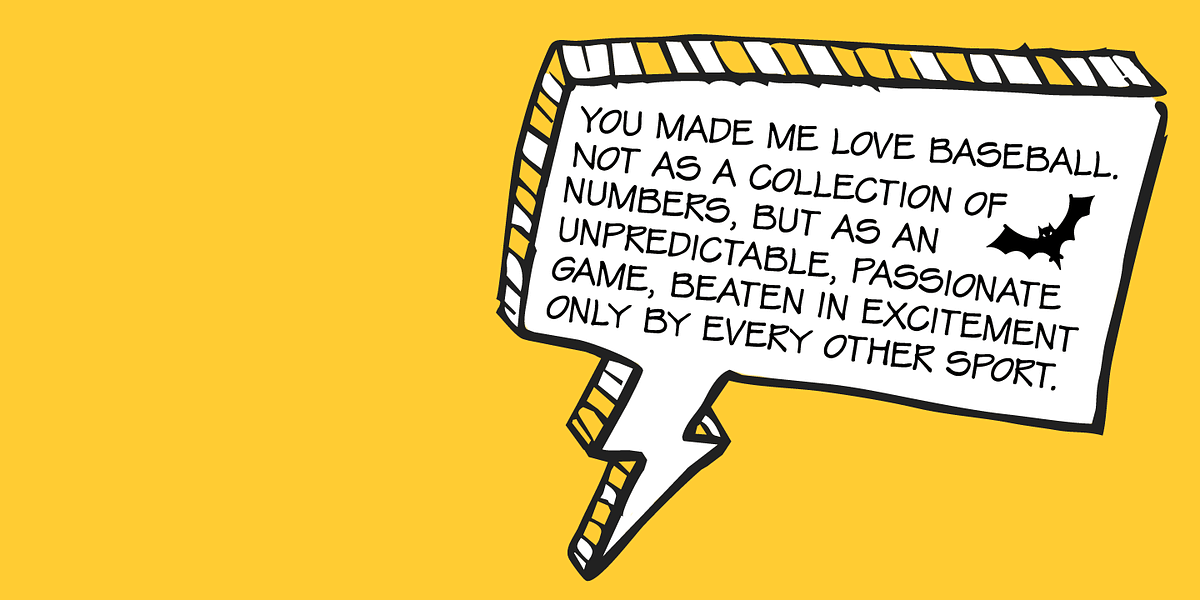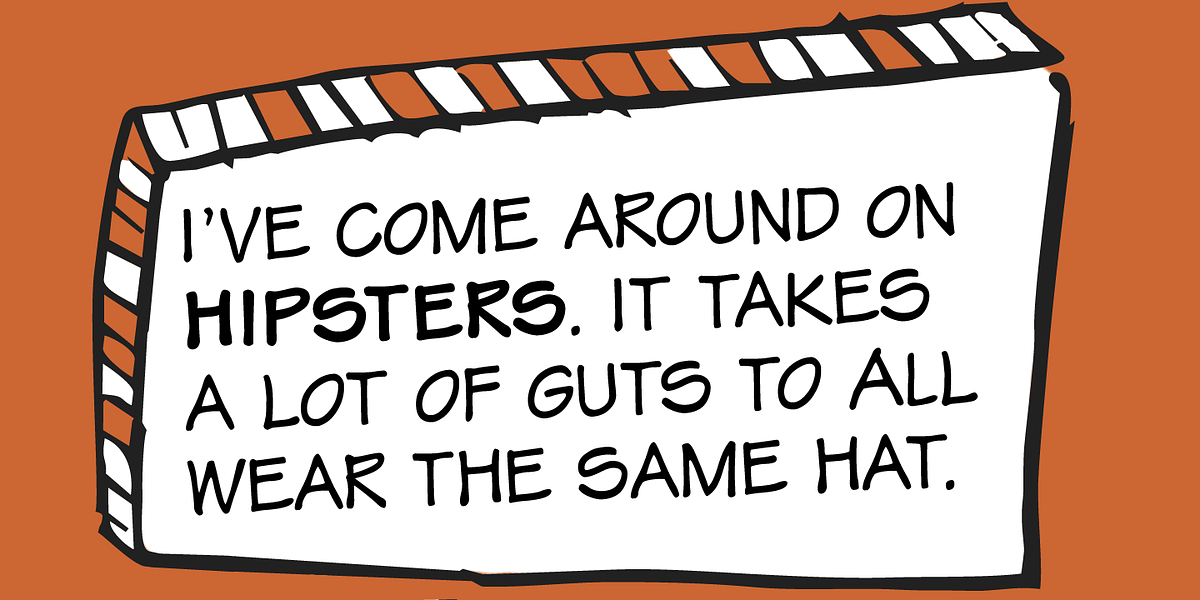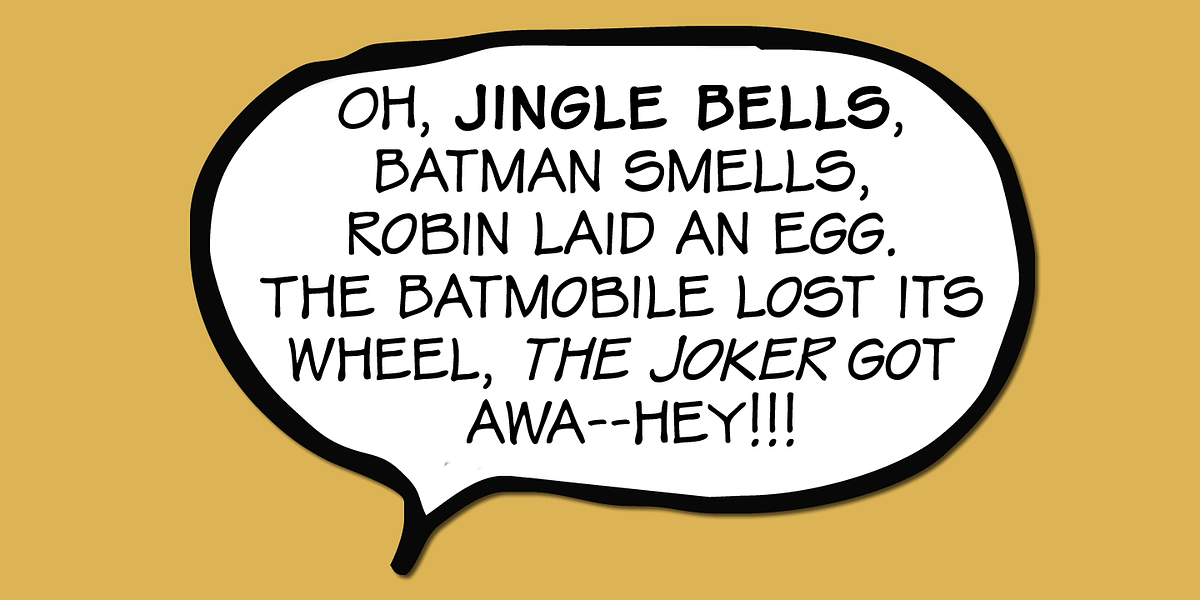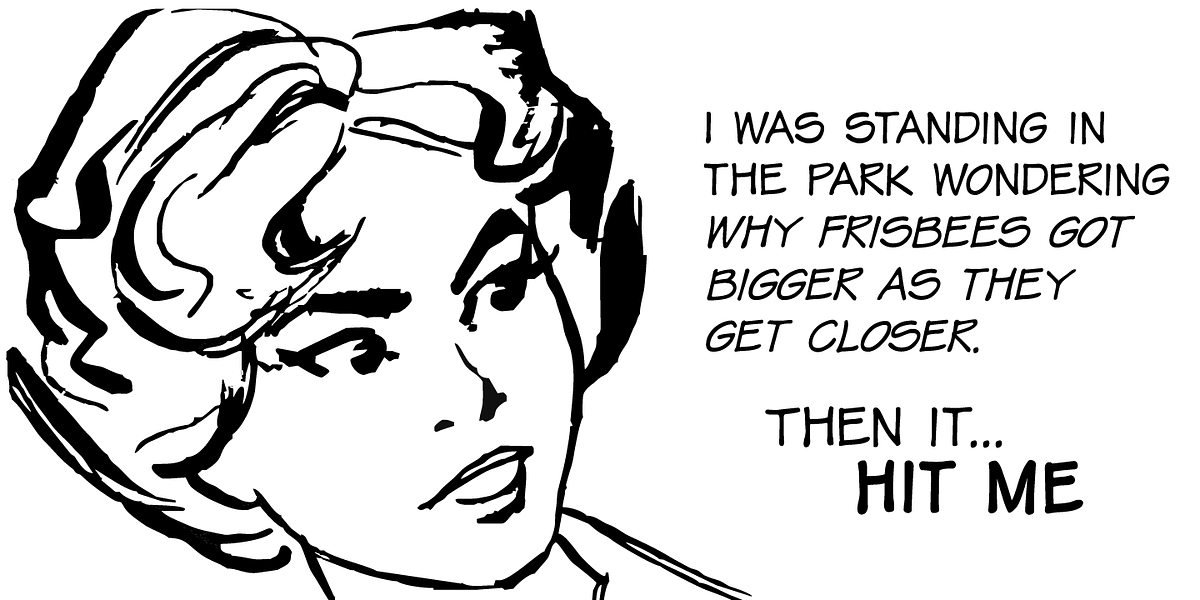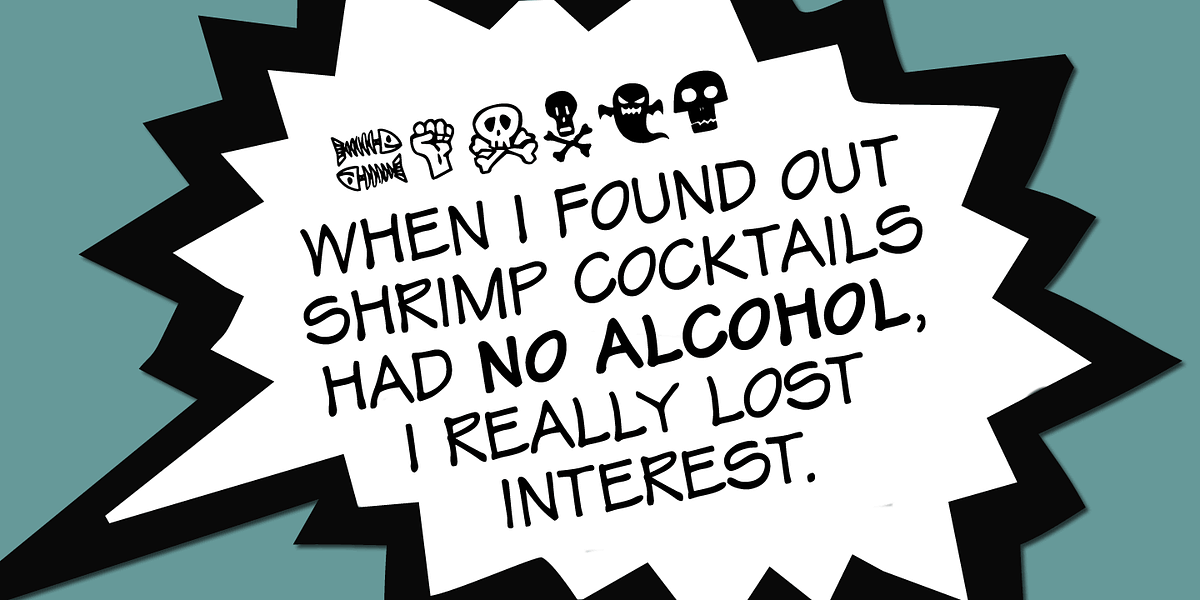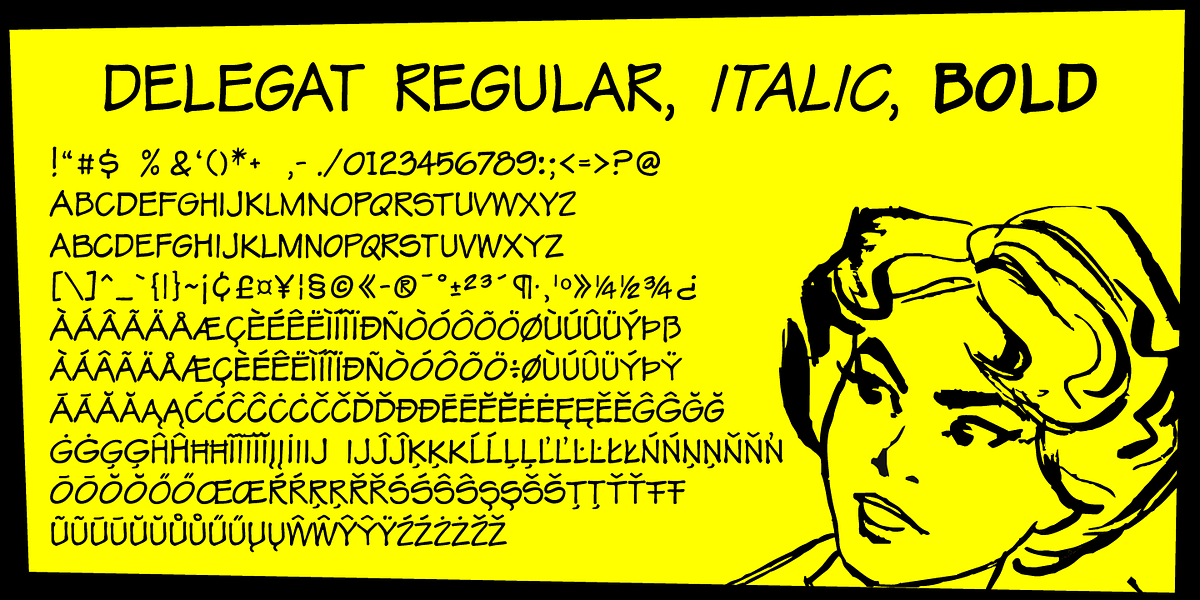
Delegat
Delegat is a comic book lettering font inspired by the handwriting of Frank Ching. It features a casual script style and includes Regular, Italic, and Bold versions. The font offers two variations for each letter and ligatures to create visual interest and avoid repetition. Delegat Extra can be used to censor curse words in comics. Its extensive language support covers Western, Central and Eastern European character sets, as well as Baltic and Turkish languages.